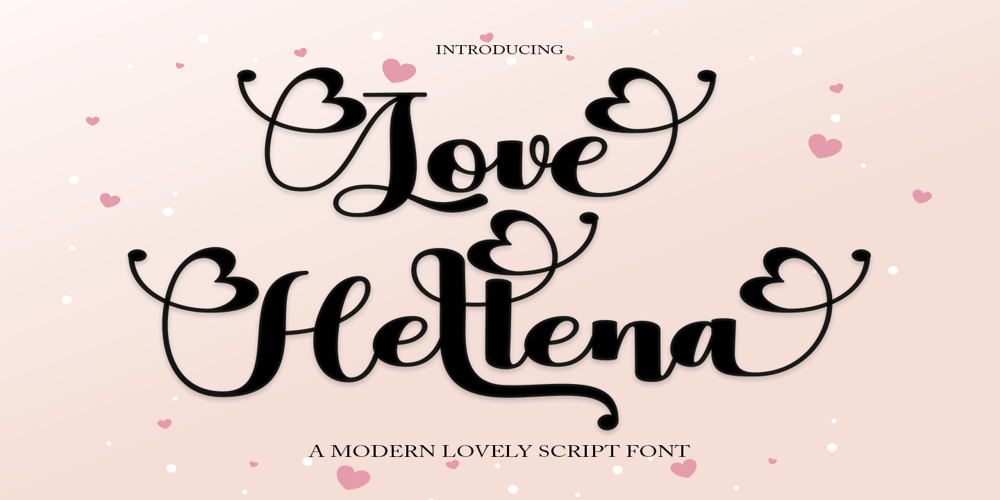
Love Hellena Font Family was designed by Has Rizal and published by Hrz Studio. Love Hellena contains 1 styles and family package options. Love HellenaFresh & modern Love scripts with handcrafted calligraphy styles, decorative characters and dancing baselines! Very pretty for invitations such as greeting cards, branding materials, business cards, quotes, posters and more!!Love Hellena comes with 450 glyphs. Alternative characters are divided into several Open Type features such as Swash, Stylistic Sets, Stylistic Alternate, Contextual Alternate. The Open Type feature can be accessed using Open Type savvy programs such as Adobe Illustrator, Adobe InDesign, Adobe Photoshop version of Corel Draw X, and Microsoft Word. And this Font has provided PUA unicode (custom coded font). so that all alternative characters can be easily accessed in full by a craftsman or designer.Love Hellena:Uppercase & Lowercase Letters International Languages & Symbols Support Punctuation & PUA Numbers Unicode Range Standard Alternative StyleIf you don’t have a program that supports OpenType features such as Adobe Illustrator and CorelDraw X Versions, you can access all the alternative glyphs using Font Book (Mac) or Character Map (Windows).Thank You